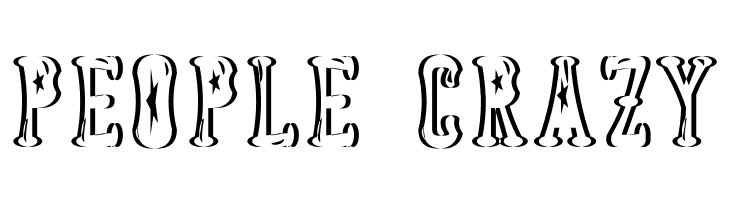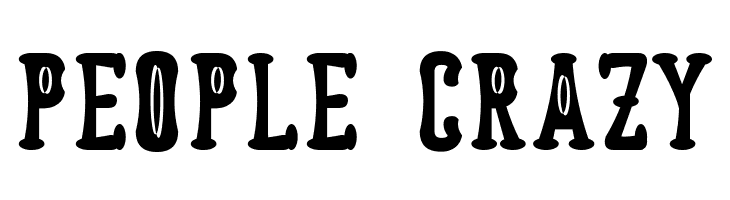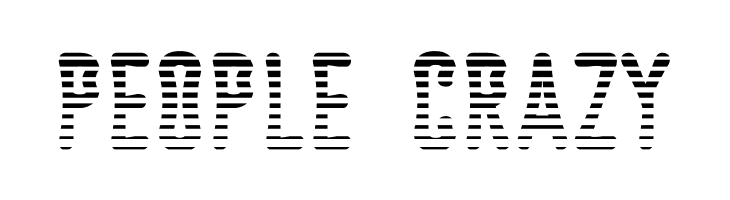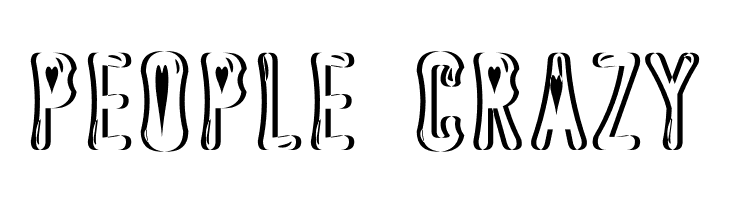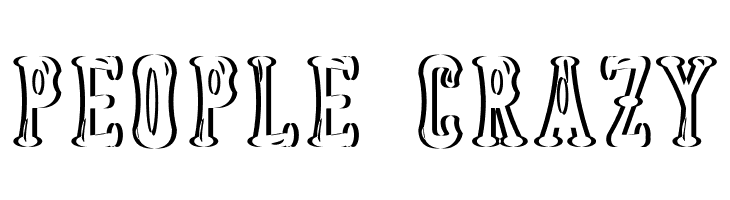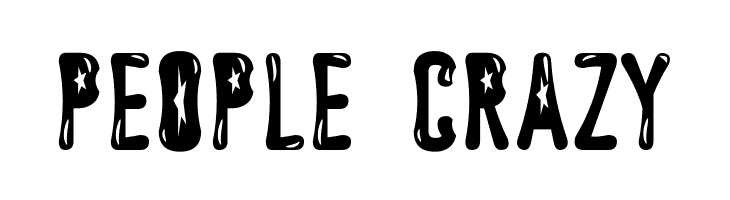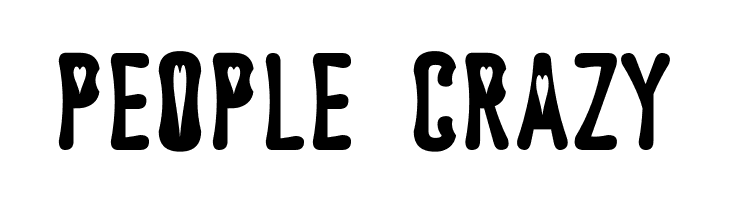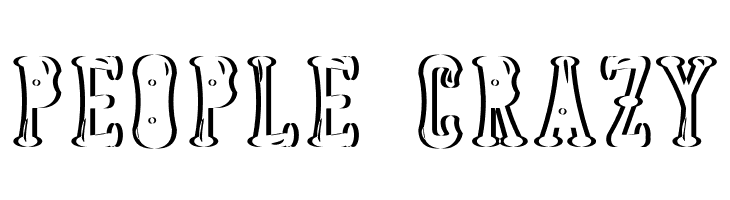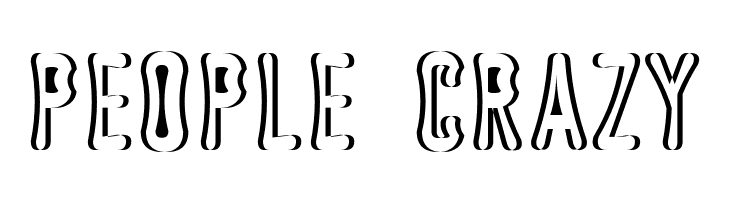
• Astakhov Dished Glamour E-F-2 S
A bold, decorative font with playful serifs and whimsical curves.
• Astakhov Dished Glamour F
A bold, playful font with a liquid-like, dripping appearance.
• Astakhov Dished Glamour FS
A bold, decorative font with star-shaped cutouts and a modern, playful style.
• Astakhov Dished Glamour H
A bold, liquid-like font with a dynamic and eye-catching style.
• Astakhov Dished Glamour H Serif
A bold, decorative serif font with high contrast and artistic flair.
• Astakhov Dished Glamour Serif
A bold, high-contrast serif font with dramatic curves and flares.
• Astakhov Dished Glamour Serif F
A bold, dramatic serif font with artistic flair and exaggerated curves.
• Astakhov Dished H
• Astakhov Dished H Serif
A bold, decorative serif font with thick strokes and playful character designs.
• Astakhov Dished L
A bold, striped font with a modern, industrial look.
• Astakhov Dished L Serif
A bold, striped serif font with a modern, industrial aesthetic.
• Astakhov Dished Serif
A bold, playful serif font with thick, rounded serifs and strong character presence.
• Astakhov Dished Serif E-F
A bold, playful serif font with exaggerated serifs and high contrast strokes.
• Astakhov Dished Serif E-F-2
A bold, decorative serif font with a playful, vintage-inspired style.
• Astakhov Dished Serif F
A bold, decorative font with thick strokes and unique dished serifs.
• Astakhov Dished Sh Gl E
A bold, decorative font with a three-dimensional shadow effect.
• Astakhov Dished Sh Gl E Serif
A bold, decorative serif font with a vintage, shadowed design.
• Astakhov Dished Sh Gl EF
A playful, three-dimensional decorative font with bold, shadowed characters.
A bold, shadowed font with a three-dimensional effect and rounded edges.
• Astakhov Dished Shadow E Serif
A bold, decorative serif font with a shadow effect for a three-dimensional look.